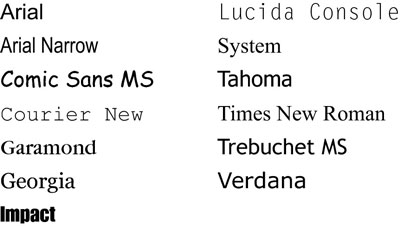
Choosing a Font and Style for Your E-Mail Marketing Message
The fonts and styles of type you choose help get your e-mail marketing message across. Fonts and styles do a lot of work for your message: They make your words readable, add emphasis where you want it, suggest moods and emotions, and reinforce your brand.
Choosing a font for your e-mail marketing message
Because most e-mail programs use HTML to display e-mails, you either need to use the proper HTML codes to display the font and style you want your audience to see or work with an EMP that allows you to specify fonts and apply style elements to your fonts by using font tools in a special user interface:
A font specified in the HTML code has to be available on the user’s computer to display properly, so use fonts available in most e-mail programs, such as:
Too many different fonts in a single e-mail can make your text look disorderly and cluttered, so limit your e-mail’s text to just two or three different fonts. Using one font for all headlines and another font for all body text is an acceptable standard.
Applying style elements in your e-mail marketing messages
Altering the style of the fonts you choose gives you a variety of options for giving your e-mails a certain look and feel. The most useful style elements and their most appropriate applications include:
• Bold text changes the weight of the text between the HTML tags <b> and </b> and creates a contrast that emphasizes the words in bold. Most e-mail editors allow you to change text to bold without inserting the HTML tags. Reserve bold text for headlines, captions, standalone words or phrases, short phrases, and single, crucial sentences.
Bold text in the middle of a paragraph tends to take attention away from the surrounding text, so when you want to emphasize just one word in a paragraph, choose italics, not bold.
• Italic text provides subtle emphasis to your words. Italics are a good choice for emphasizing a single word or short phrase in a paragraph, distinguishing subheadings, calling attention to proper names, and identifying the titles of books, movies, newspapers, and magazines.
Italic text can be difficult to read on a computer screen, so limit the use of italics to single words and short phrases.
• Underlined text emphasizes it and identifies hyperlinks. You can underline headlines to separate them from the following text, but be aware that people expect underlined text to represent a clickable link, so it’s best to meet that expectation when you can.
• Size: Changing text point size makes a font larger or smaller and makes text easier to read on a computer screen. You can use different sizes to indicate headlines and links, deemphasize a large block of text, or help fit text into a confined space.
If you decide to mix different point sizes, make sure that every type of textual content shares the same point size — each type of headline should use the same point size, for example.
• Color: Different font colors can enhance the overall look and feel of your text and your entire e-mail. Using darker text and a lighter background usually produces more legible text onscreen. You can use color to indicate links, highlight headlines, and coordinate with branding items such as logos.
Applying color to your text can make your words difficult to read. Make sure you have enough contrast between your font color and the background color of your text.